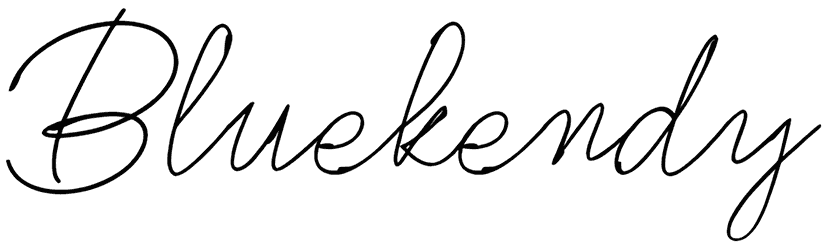
Bluekendy Font
If you’re looking for a vintage script font that matches the classic style, Bluekendy is for you. The slim letters of this handwritten font are compatible with modern designs and add a personal touch.
Every letter has a unique human feel that never seems repetitive and will stand out even with thousands of other handwritten fonts. To make the text on packaging, posters, and advertisements more beautiful, using graphics can be very helpful.